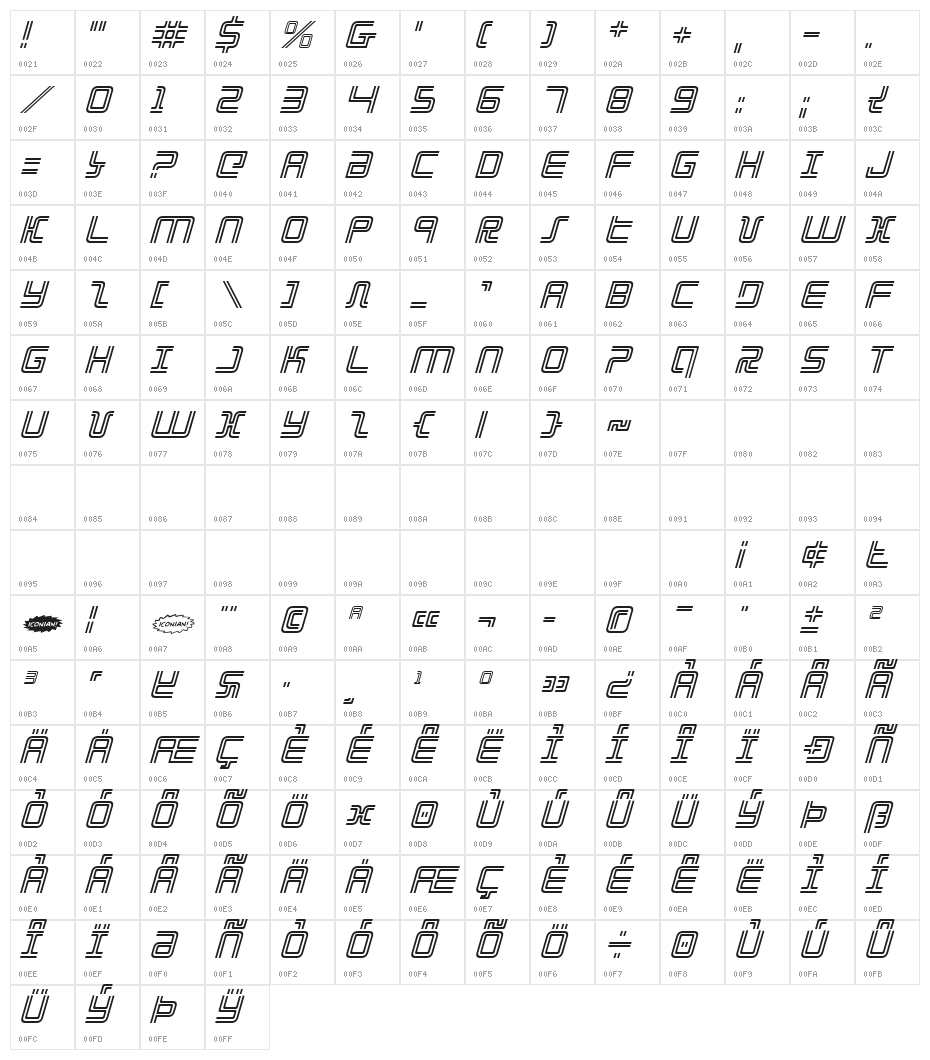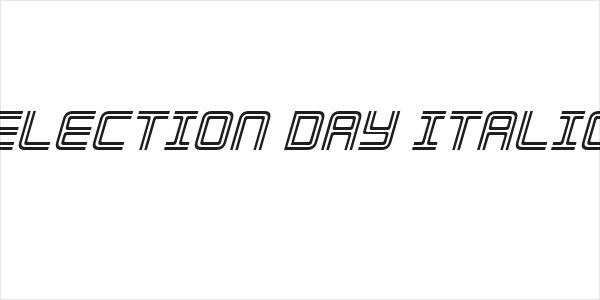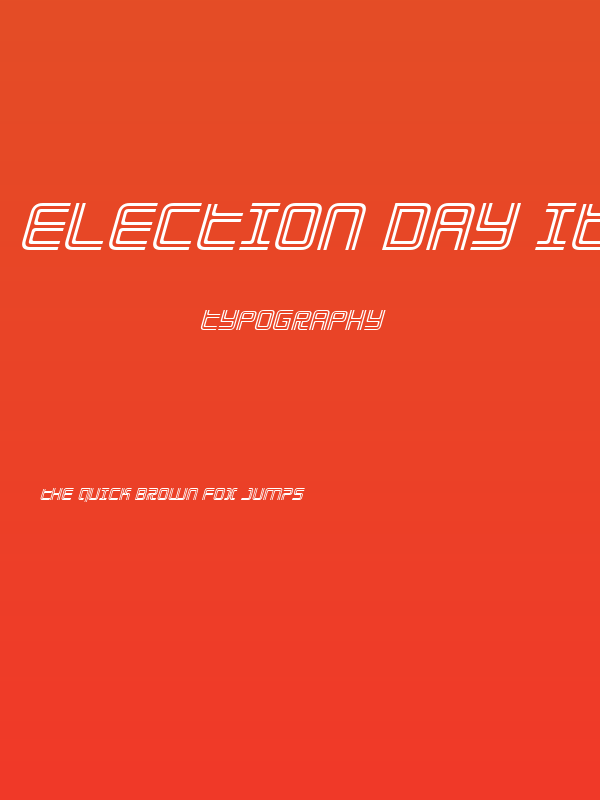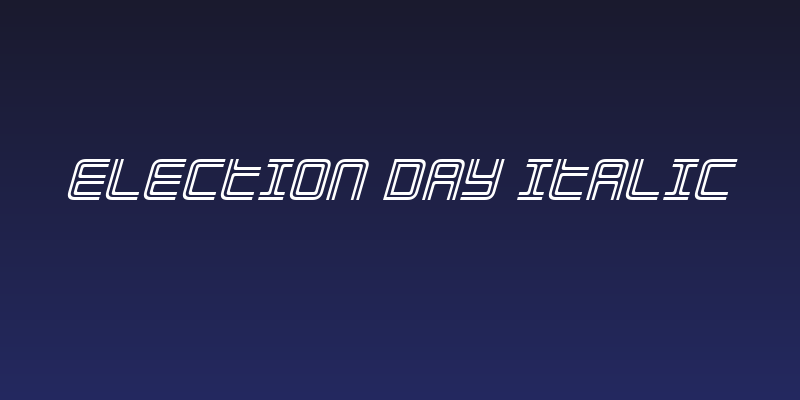
Election Day Italic Font
Election Day Italic Description
This font features a futuristic and dynamic design with a distinct italic slant, giving it a sense of motion and speed. The characters are outlined, creating a hollow effect that adds depth and dimension. Each letter is constructed with clean, geometric lines, emphasizing a modern aesthetic. The uppercase and lowercase letters maintain a consistent style, with the lowercase mirroring the uppercase in form but reduced in size. The numerals are bold and easily distinguishable, matching the overall style of the alphabet. Special characters are included, maintaining the same outlined and italicized design, ensuring a cohesive look across all elements.